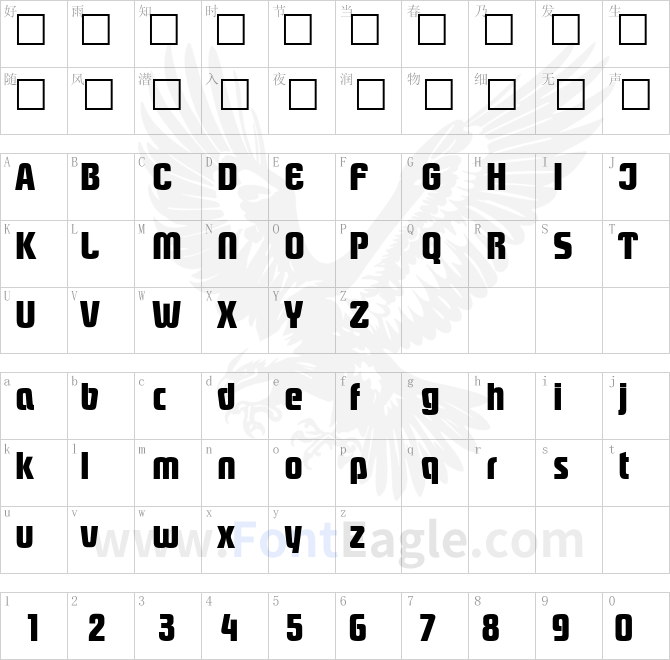
- Font name:Piazza SF
- Font Subfamily ID:Altsys Fontographer 3.5 Pasadena Bold
- Font Full Name:Piazza SF Bold
- Font Version:Altsys Fontographer 3.5 9/23/93
- Postscript:PiazzaSF-Bold